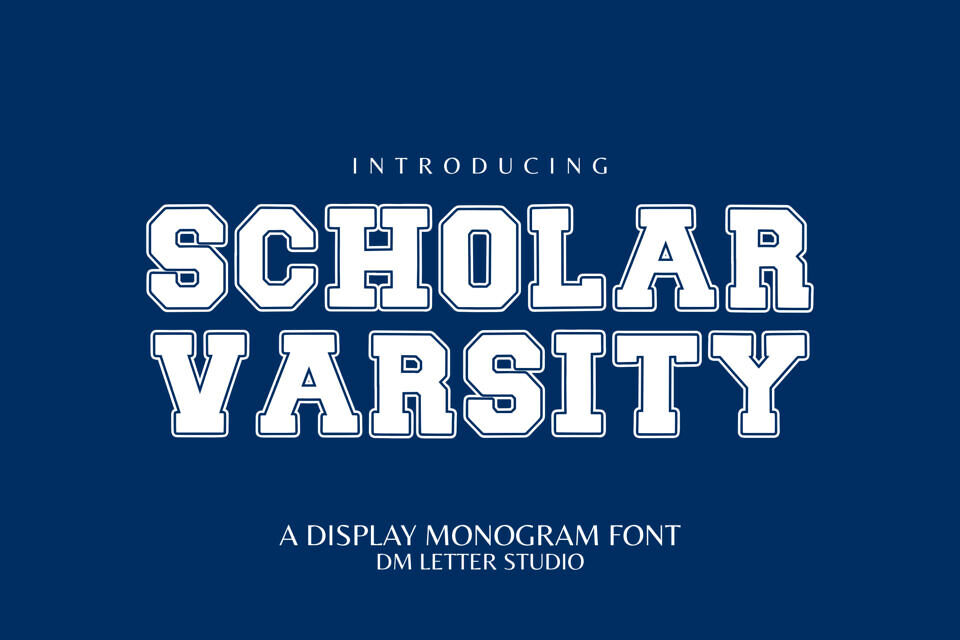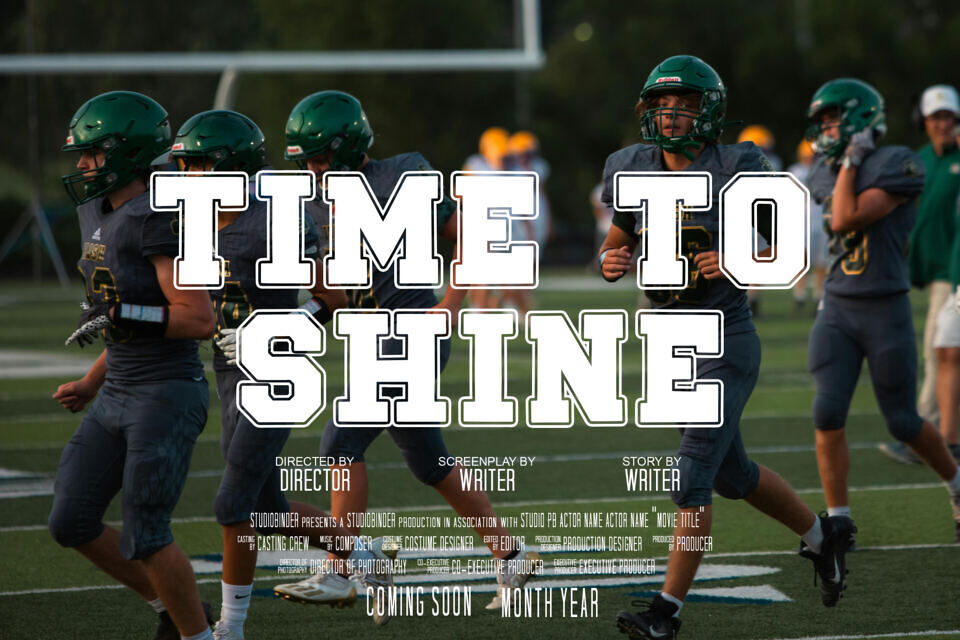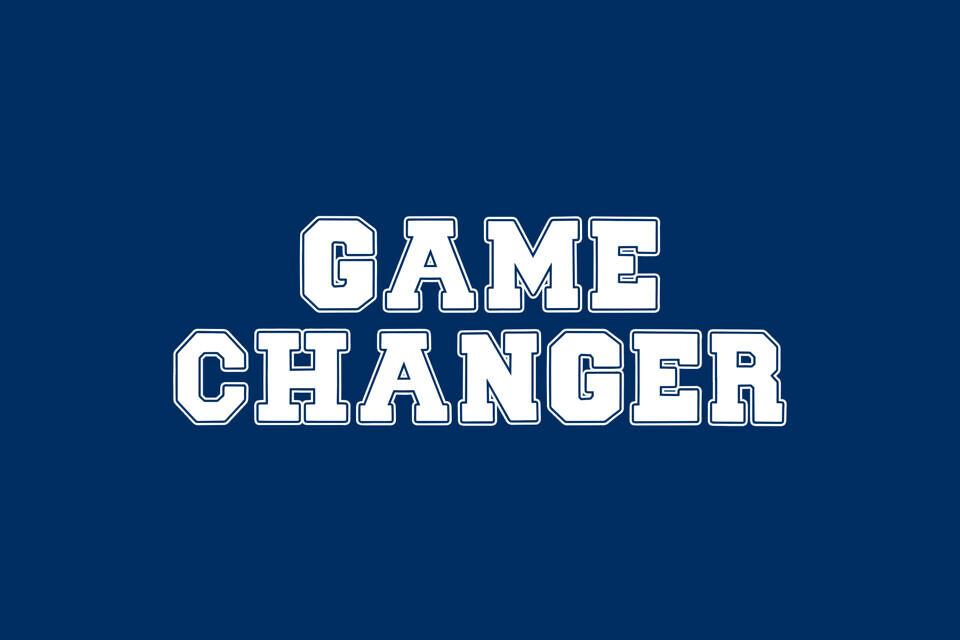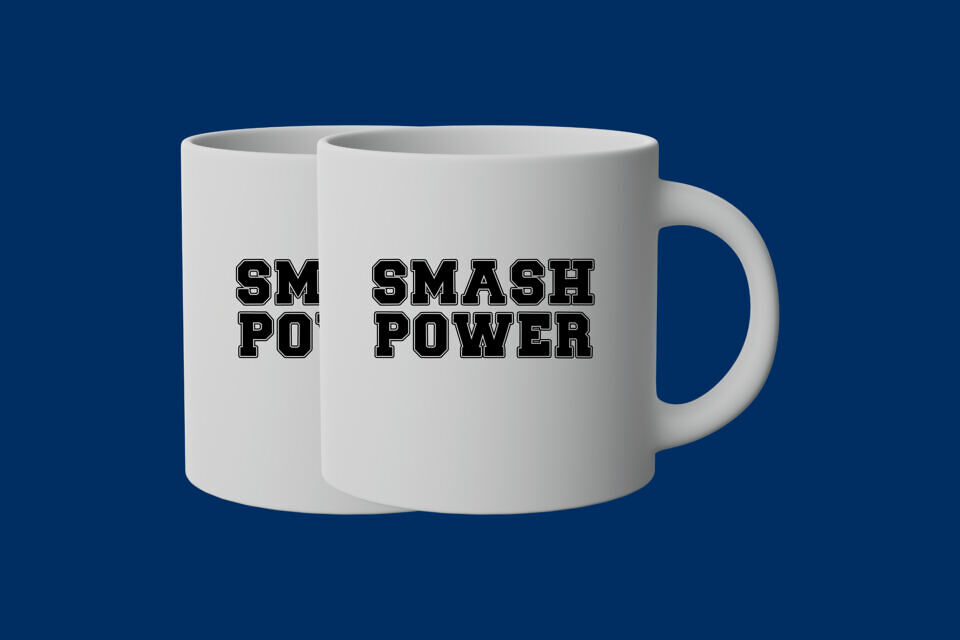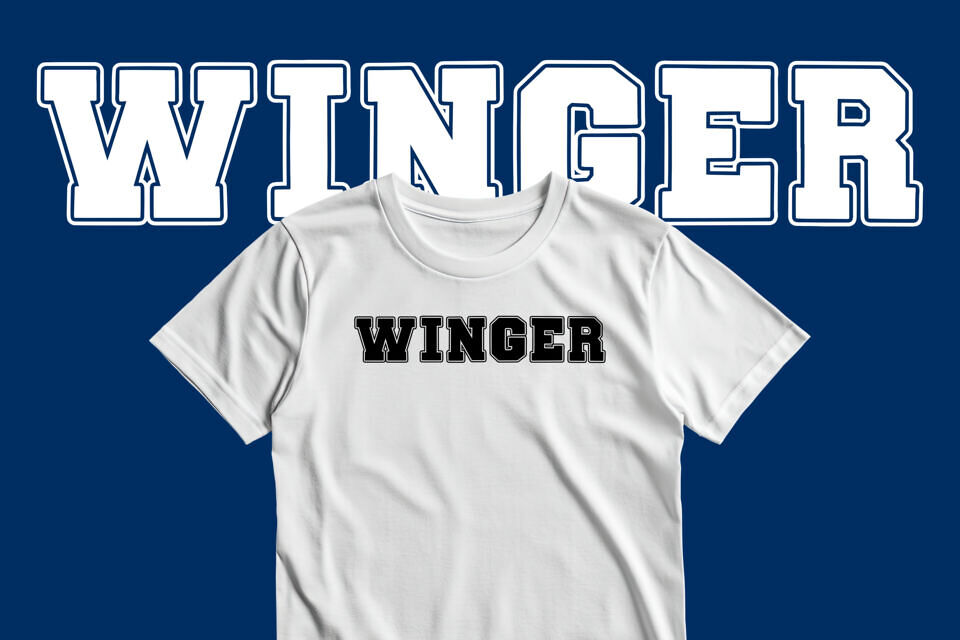
Scholar Varsity is a bold and structured college varsity font designed to bring that classic academic look to your creative projects. With sharp lines, blocky forms, and a clean all-caps layout, this typeface delivers timeless varsity style—perfect for sports apparel, university logos, graduation merchandise, team posters, and school-themed social media graphics.
Crafted to evoke the spirit of traditional school athletics and academia, Scholar Varsity features a strong, confident presence that immediately grabs attention. Its bold lettering mirrors the fonts seen on letterman jackets, sports jerseys, and old-school campus signs, making it ideal for both retro and modern designs with an academic flair.